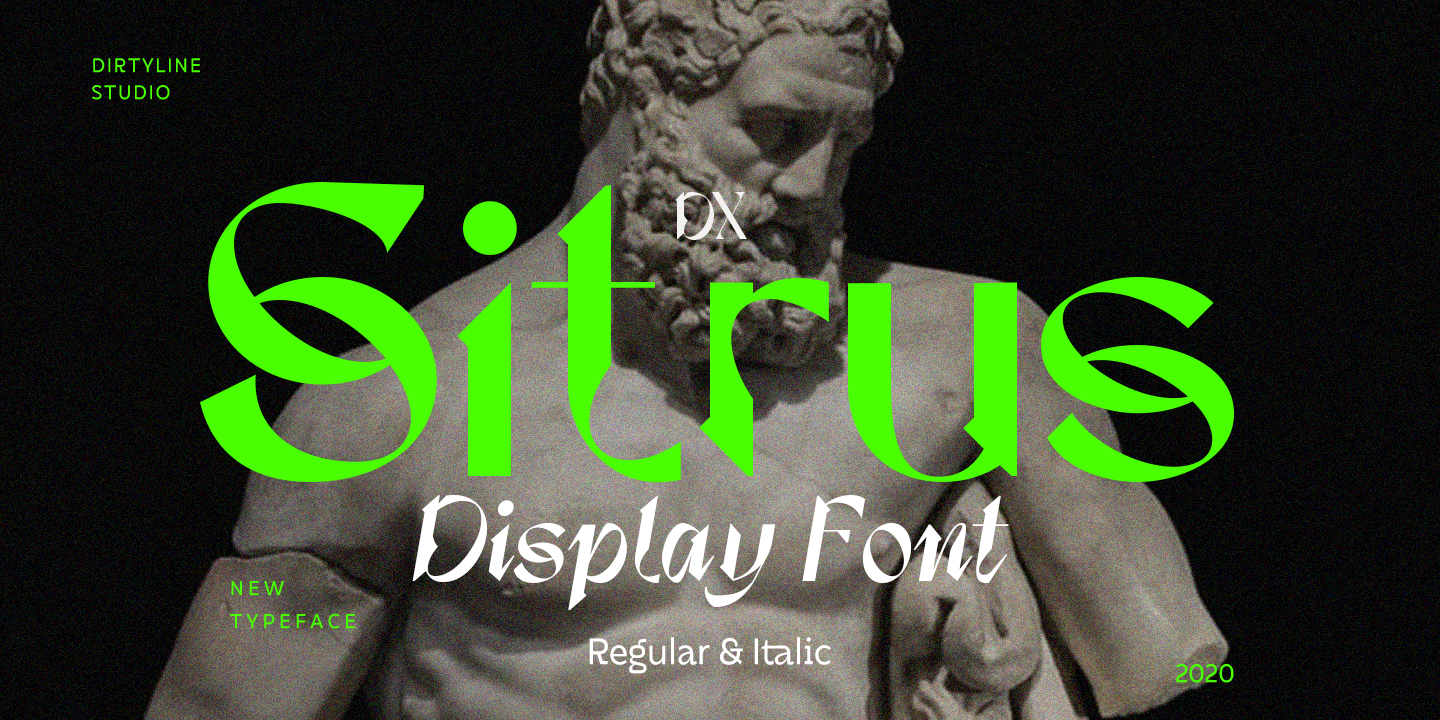
Dx Sitrus Font is perfect for vibrant juice branding, citrus product packaging, fresh fruit marketing, tropical beverage labels, sunny restaurant logos, vitamin supplement designs, health food communications, and energetic lifestyle campaigns. This zesty typeface excels in applications requiring fresh vitality and citrus energy that captures the essence of healthy living and refreshing experiences through bright, invigorating visual character.
What makes Dx Sitrus Font exciting is its electrifying freshness that perfectly captures the burst of citrus energy and vitamin-packed vitality through dynamically styled letterforms. The font features energetic character construction with citrus-inspired curves and vibrant presence that instantly evokes feelings of health, freshness, and natural energy perfect for brands celebrating wellness, nutrition, and active lifestyle experiences.
The Dx Sitrus Font family includes regular and zesty variations with citrus-powered styling elements, offering designers comprehensive tools for creating refreshing health-focused compositions. The family provides consistent citrus aesthetic with varying energy levels for versatile wellness communications and fresh product branding requiring genuine vitamin appeal and energetic health character.
Dx Sitrus Font Free Download offers designers access to premium citrus typography that perfectly embodies the spirit of health, vitality, and fresh nutrition. Whether you're creating juice brand materials, health supplement packaging, wellness communications, or energetic lifestyle campaigns, this font provides the zesty character needed for establishing fresh market appeal and healthy brand positioning.
The energetically crafted letterforms of Dx Sitrus Font ensure excellent visibility while maximizing citrus charm and health appeal, making it ideal for vitamin packaging, fresh beverage marketing, and wellness brand communications. This vibrant typeface combines citrus authenticity with modern technical standards for outstanding performance in contemporary design projects requiring genuine fresh character and vitamin-powered energy presence.